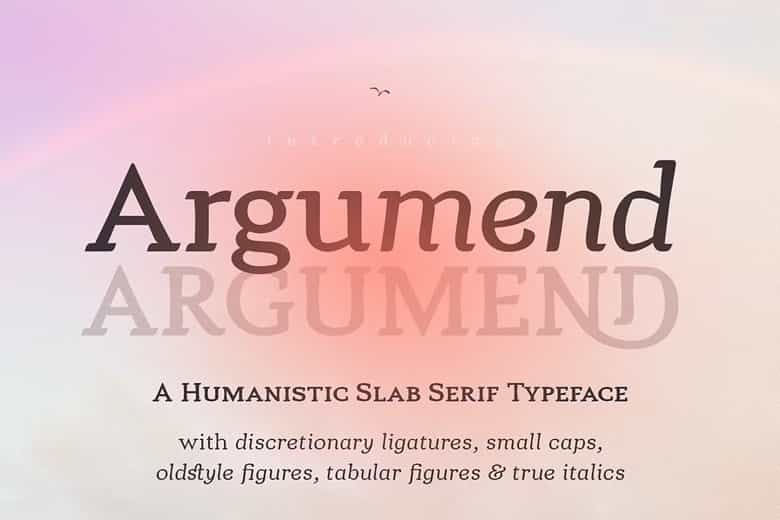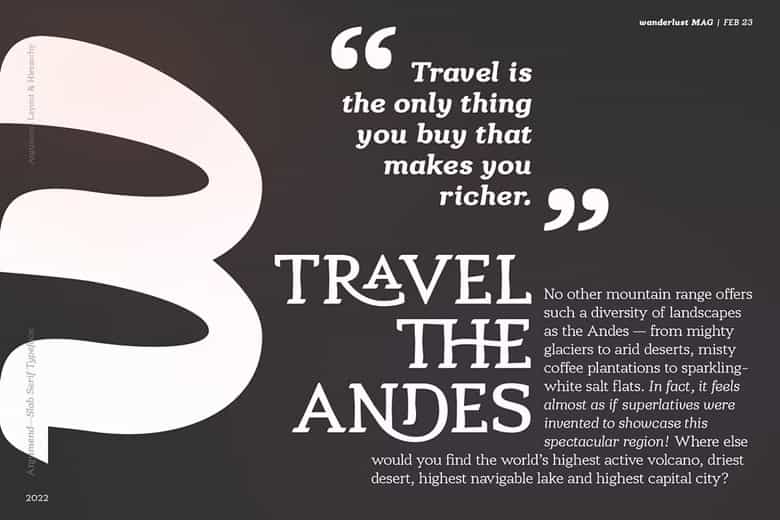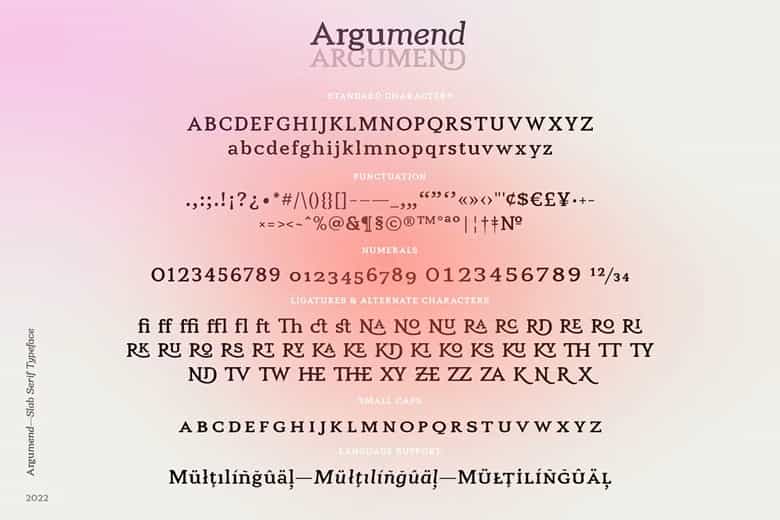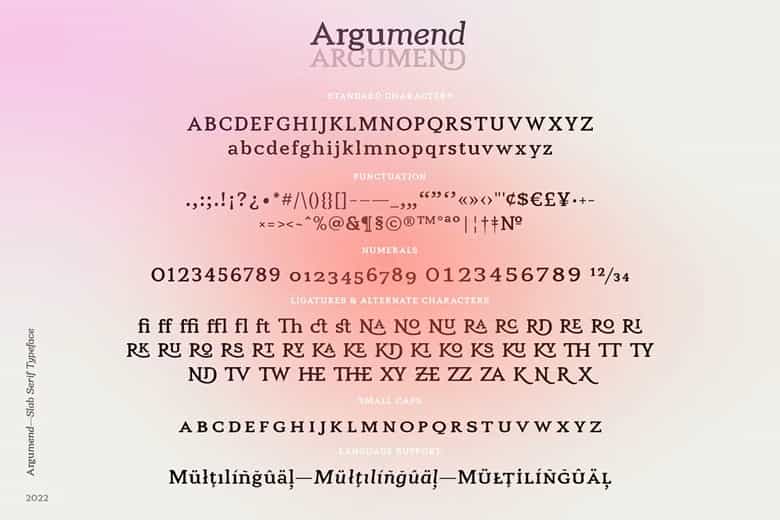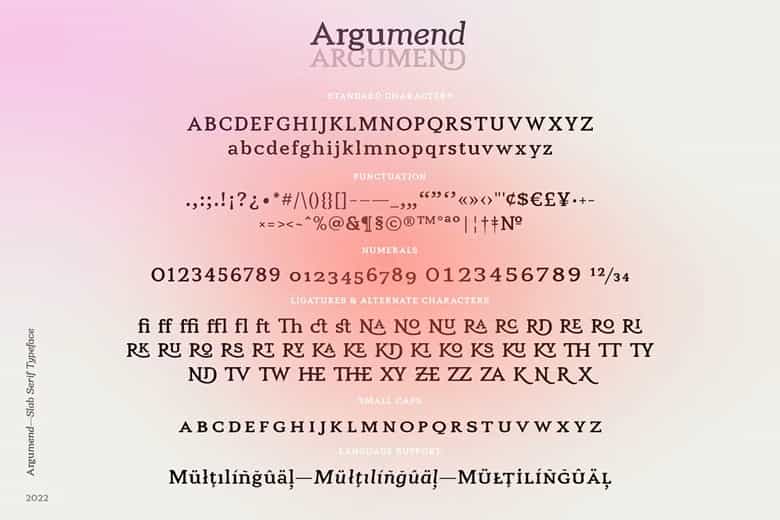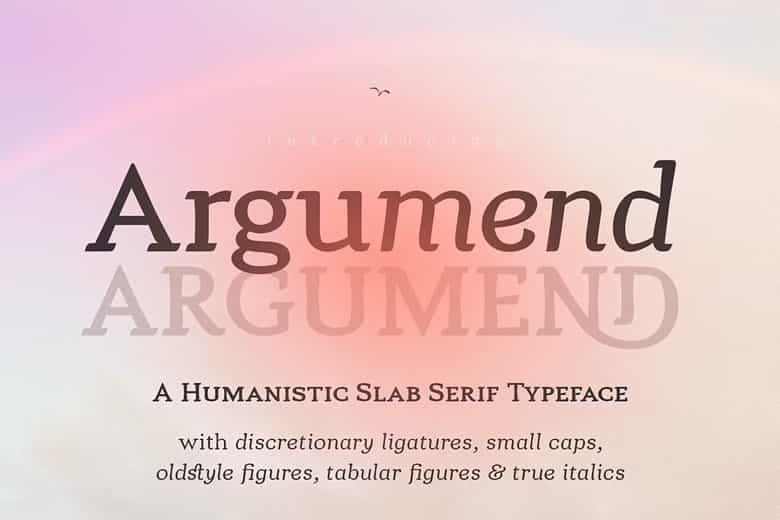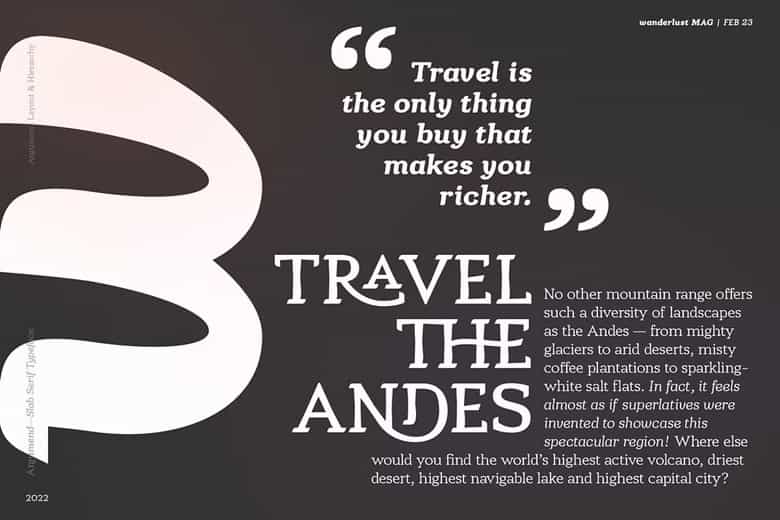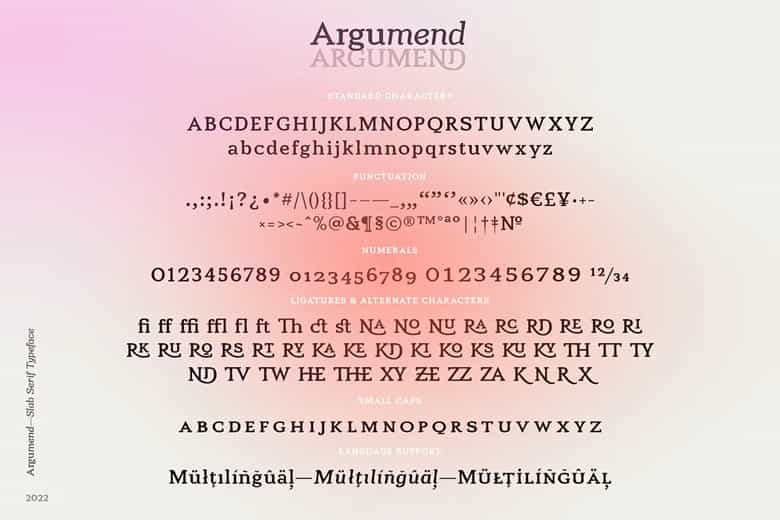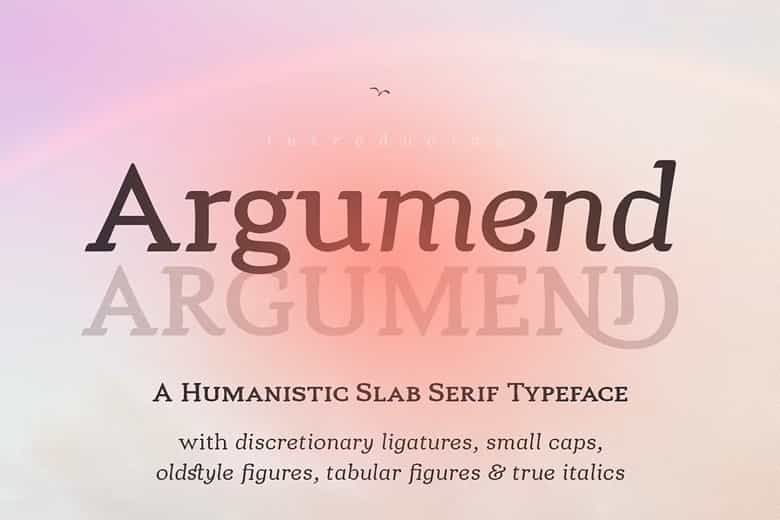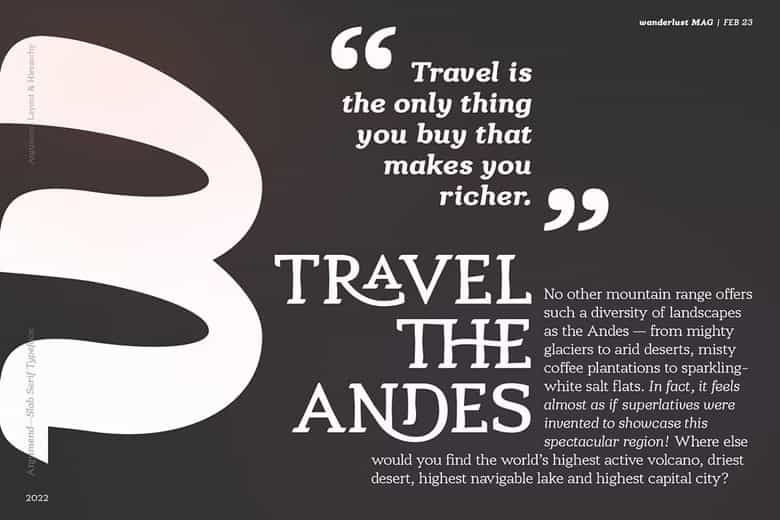
Argumend Font
Argumend is a highly stylized slab serif font with wide repertory of Opentype features. Design punchy headlines with upper case ligatures or take advantage of it having numerous weights and true italics to establish conscious body copy; either and it is rife with consideration to typography to assist in creating attention grabbing copy.